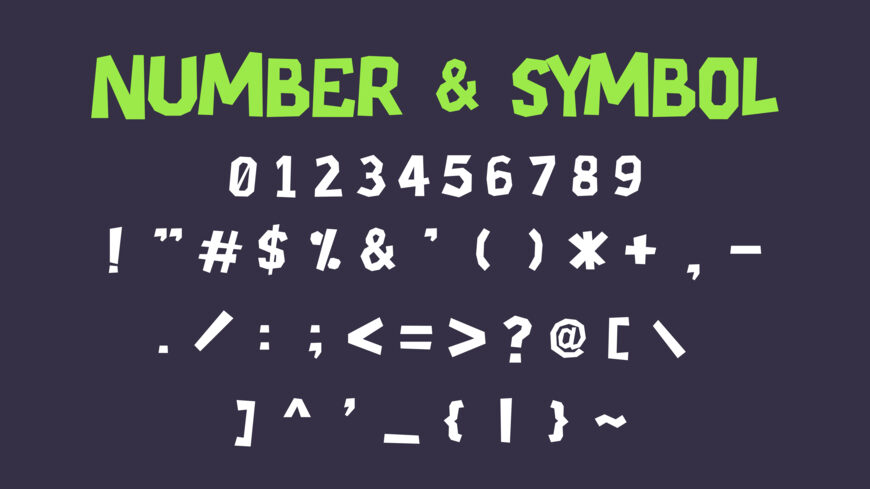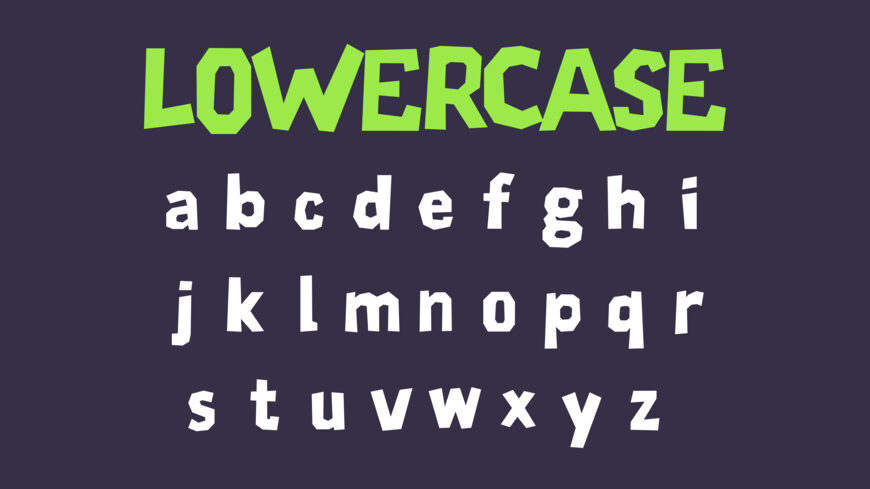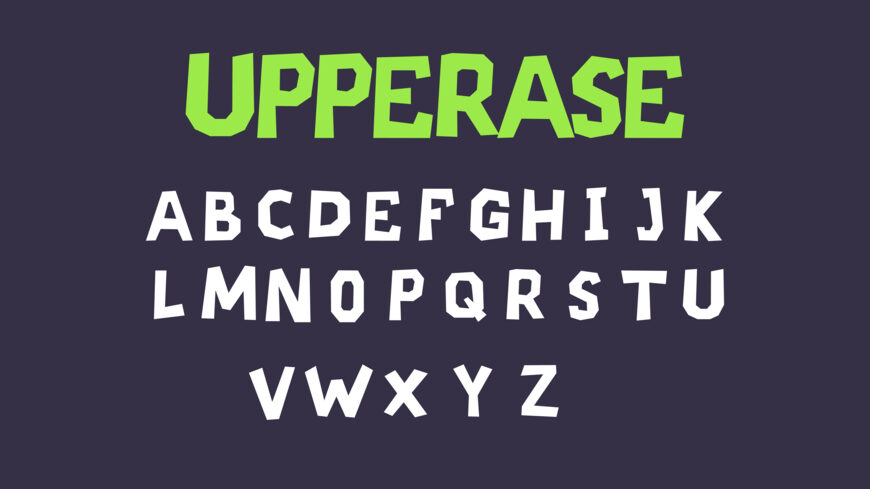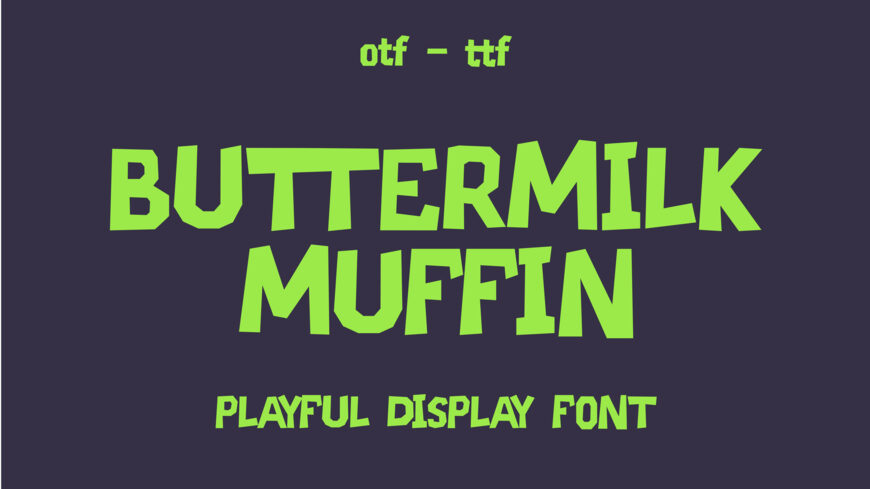
Buttermilk Muffin Font
Buttermilk Muffin is a cute handwritten display font inspired by cozy homemade baking and cheerful childhood memories. Its playful curves and natural strokes make every design feel warm, friendly, and full of personality.
Whether you’re creating branding, printable products, children’s content, or eye-catching social media graphics, Buttermilk Muffin adds a charming handmade touch that stands out.